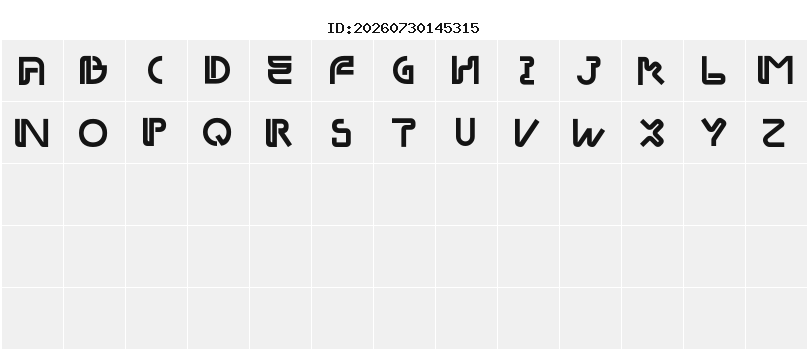
likaDR Preview
About likaDR.ttf
likaDR.ttf is a modern, elegant sans-serif font designed for ultimate readability and visual harmony. Perfect for branding, headlines, web design, and print materials.